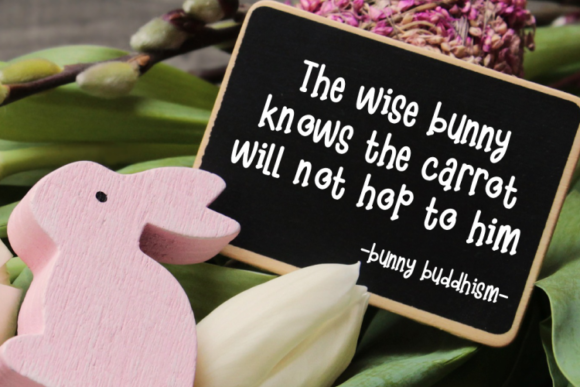
Kidz Font
Kidz is a font that will make your design looks modern, unique, and fun. Perfect for playful kids font with cartoon style. This font is perfect for children, Kids, Boys, Kindergarten, Birthday, and Comic purposes. Kidz font has a unique glyph and fun style.